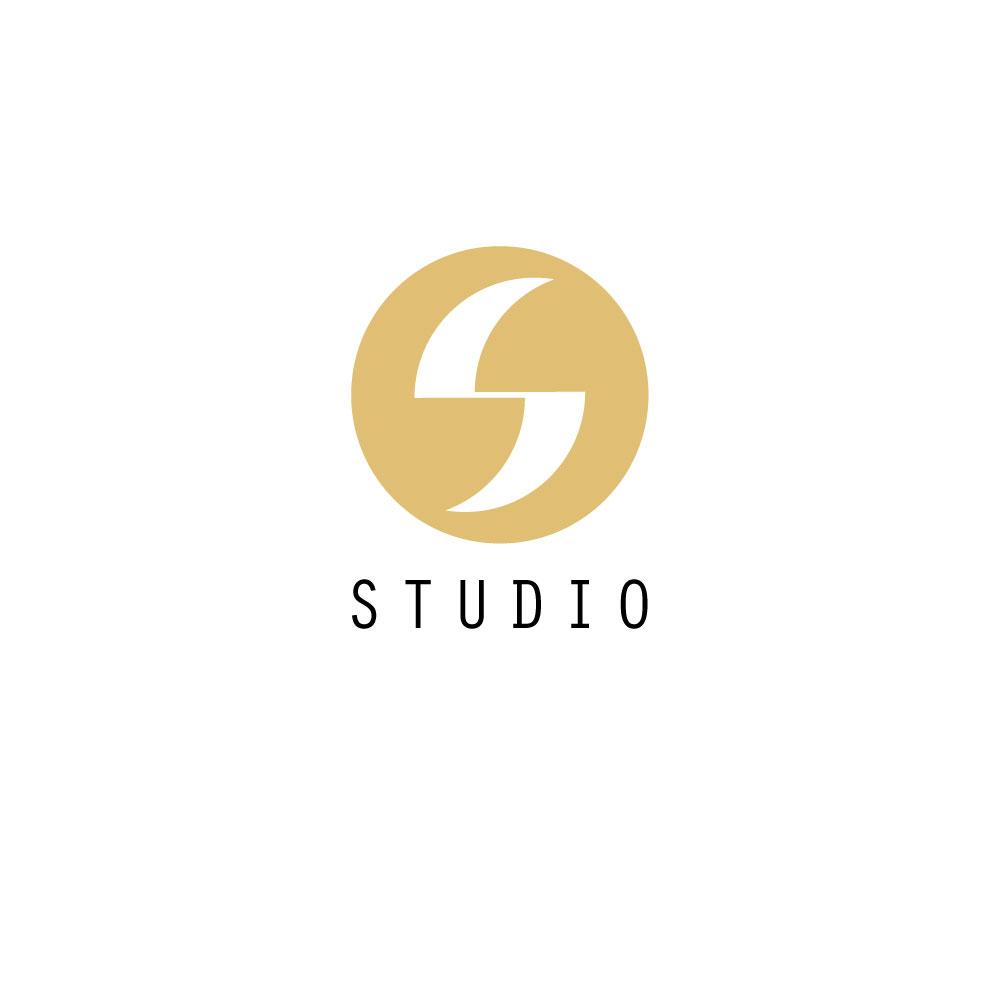
Nukman Tsabit a modern font, perfect for a wide range of uses. This thin and clean font is ideal for body text, and looks great in sharp and clean designs.